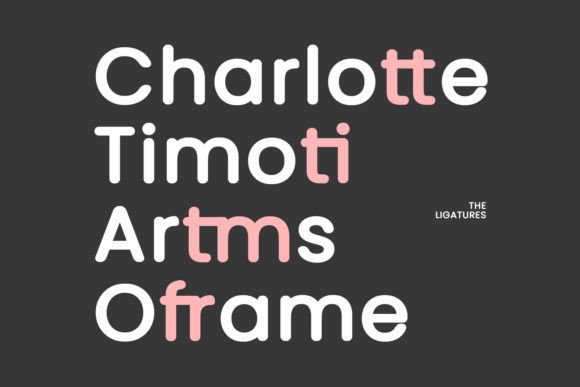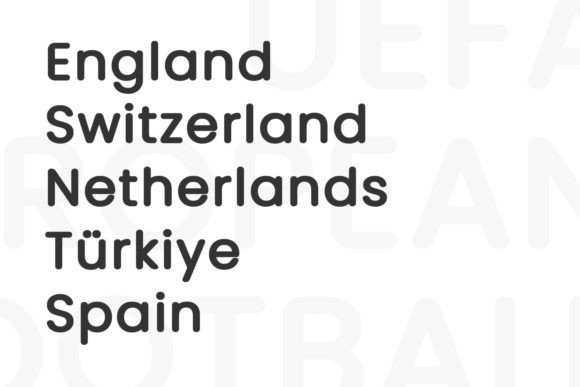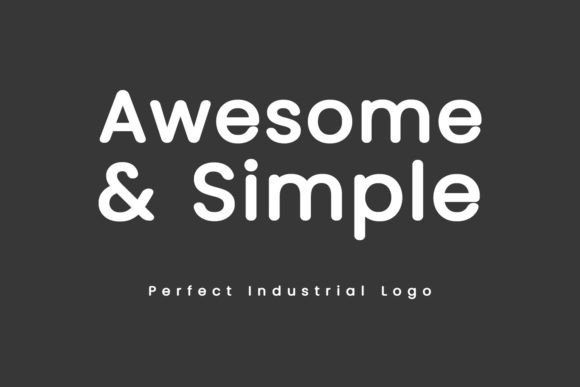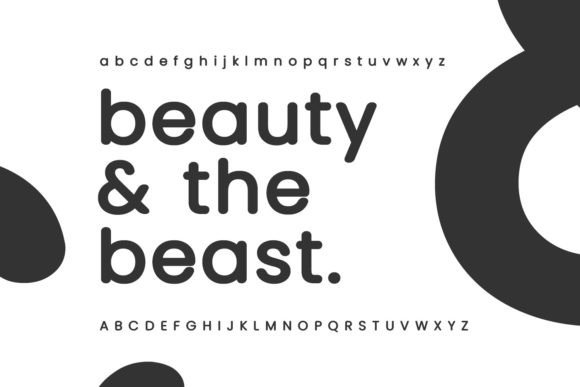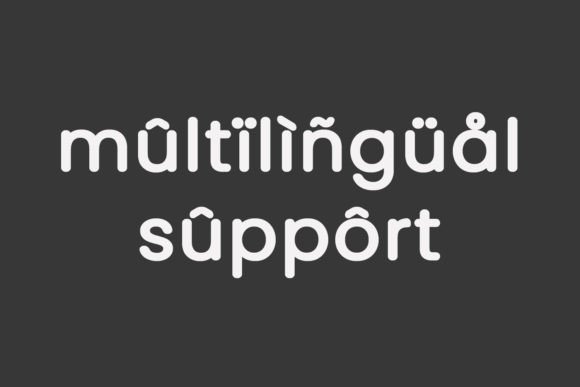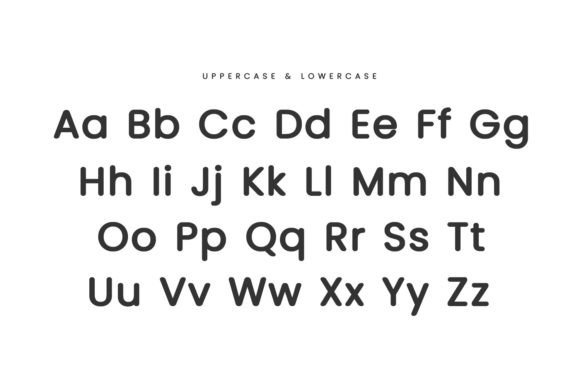
Introduction to Rensol Font
Rensol is a smooth and rounded font with clean lines and no sharp edges.
It belongs to the sans serif family, meaning it doesnโt have the small decorative strokes at the ends of its letters This makes it modern, easy to read, and perfect for a friendly, approachable look in text.
Key Features of Rensol Font
Why Choose Rensol Font?